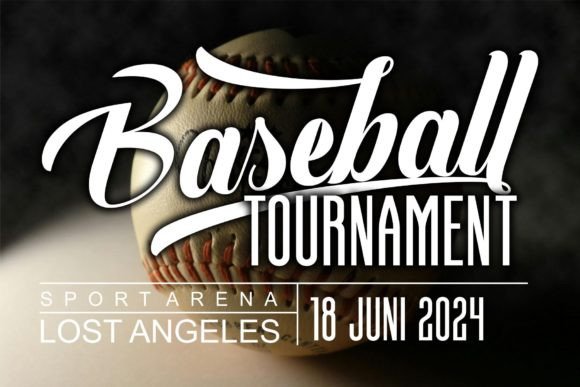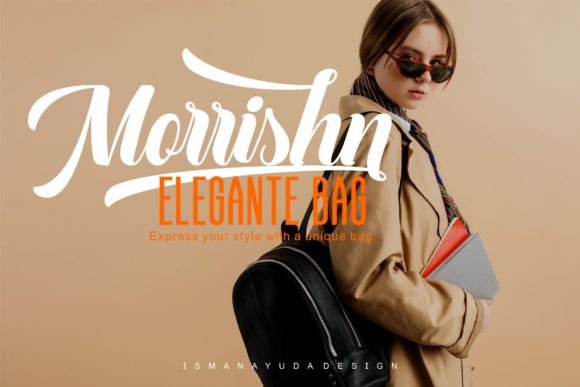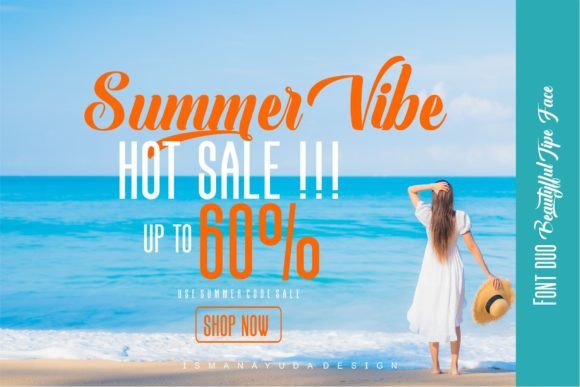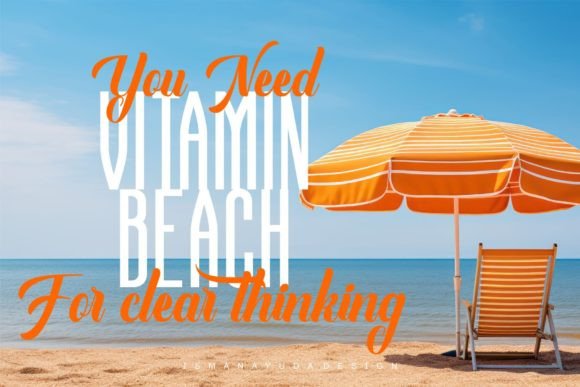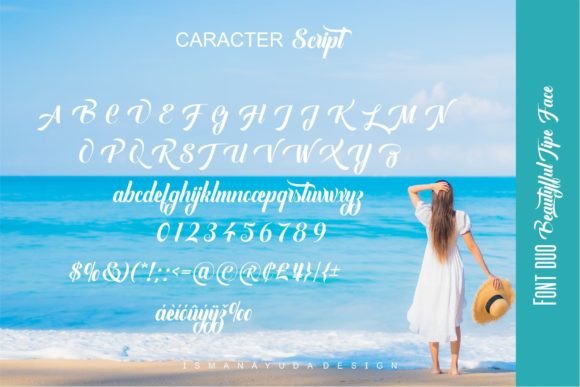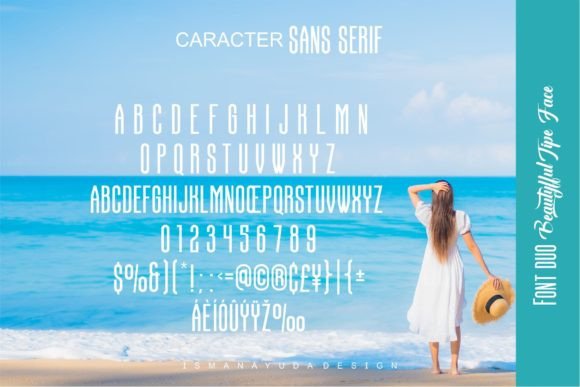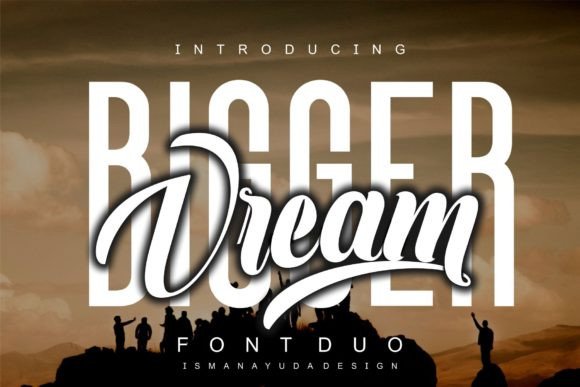
Bigger Dream Font: Elevate Your Fashion Designs with Style
In the world of fashion design, typography plays a crucial role in conveying elegance, sophistication, and style. A well-chosen font can make or break a design, and that’s where the Bigger Dream Font comes in – a stylish font duo that’s perfect for fashion designs. This comprehensive guide will explore the features, benefits, and uses of the Bigger Dream Font, and how it can elevate your designs to the next level.
What is Bigger Dream Font?
Bigger Dream Font is a carefully crafted font duo that consists of two distinct typefaces: one bold and elegant, and the other simple and clean. This harmonious combination allows designers to add a trendy and modern touch to their projects, making it an ideal choice for logos, invitations, branding, and more. The font’s versatility and aesthetic appeal make it a must-have for designers and crafters looking to create stunning visual content.
Key Features of Bigger Dream Font
- Font Duo: Bigger Dream Font includes two types of fonts that work well together, providing a range of creative possibilities.
- Bold and Elegant: One font is bold, elegant, and perfect for making a statement, while the other is simple and clean, ideal for adding a touch of subtlety.
- Trendy and Modern: The combination of both fonts adds a trendy and modern look to any project, making it perfect for fashion designs, logos, and branding.
- Highly Versatile: Bigger Dream Font can be used for a wide range of design projects, from invitations and business cards to social media graphics and website headers.
Benefits of Using Bigger Dream Font
So, why choose Bigger Dream Font for your fashion designs? Here are just a few benefits:
- Enhance Your Brand’s Visual Identity: With Bigger Dream Font, you can create a unique and recognizable visual identity for your brand that sets you apart from the competition.
- Save Time and Effort: The font duo’s versatility and ease of use save you time and effort, allowing you to focus on other creative aspects of your design.
- Professional-Grade Results: Bigger Dream Font is designed to deliver professional-grade results, ensuring your designs look polished and refined.
Who Can Benefit from Bigger Dream Font?
Bigger Dream Font is perfect for:
- Fashion Designers: Create stunning fashion designs, logos, and branding materials that exude style and sophistication.
- Graphic Designers: Add a touch of elegance and modernity to your graphic design projects, from invitations to social media graphics.
- Crafters and Makers: Elevate your craft projects, such as handmade cards, gift tags, and more, with a professional-grade font.
In conclusion, Bigger Dream Font is a stylish and versatile font duo that’s perfect for fashion designs, logos, invitations, and branding. Its bold and elegant, simple and clean combination adds a trendy and modern touch to any project, making it a must-have for designers and crafters. With its ease of use, professional-grade results, and range of creative possibilities, Bigger Dream Font is an essential tool for anyone looking to elevate their designs and create stunning visual content.